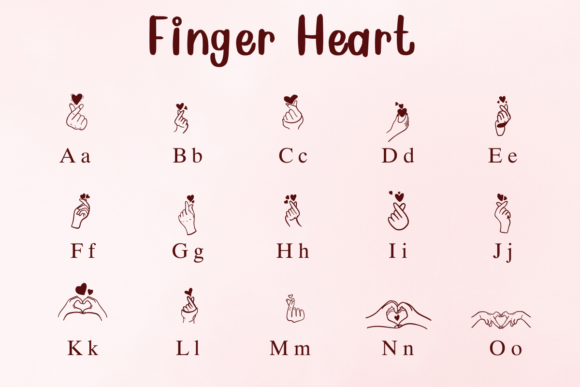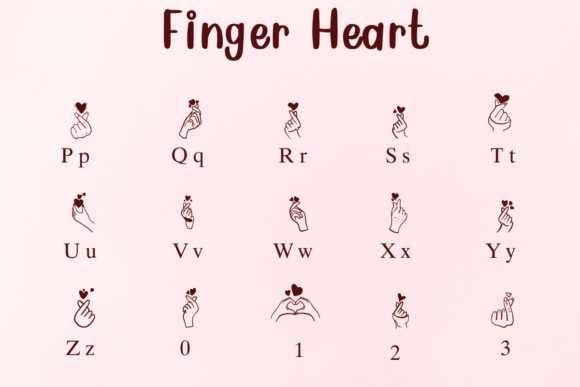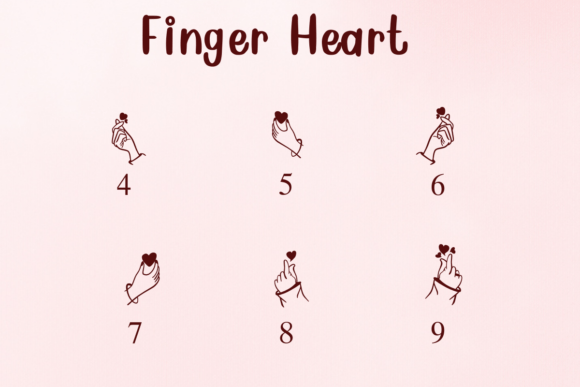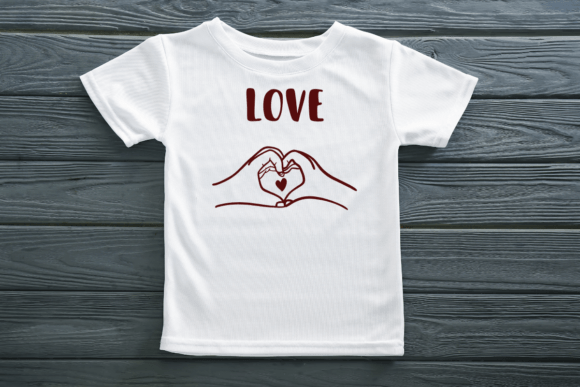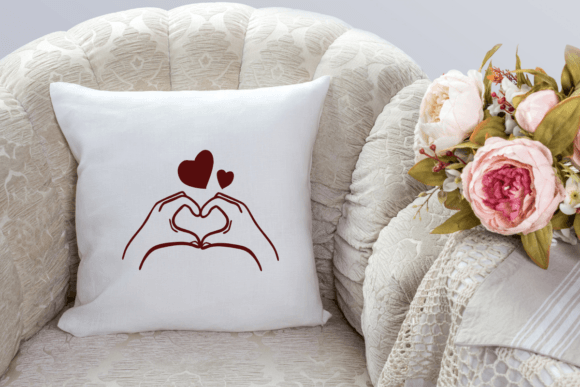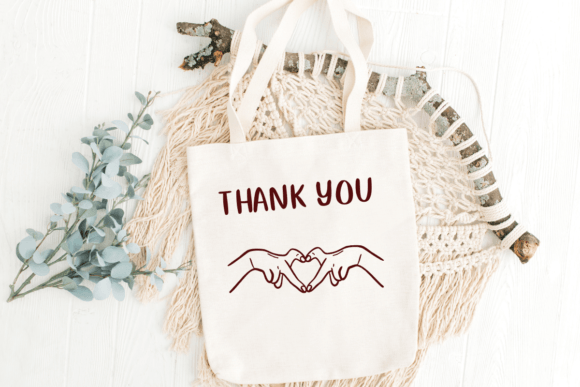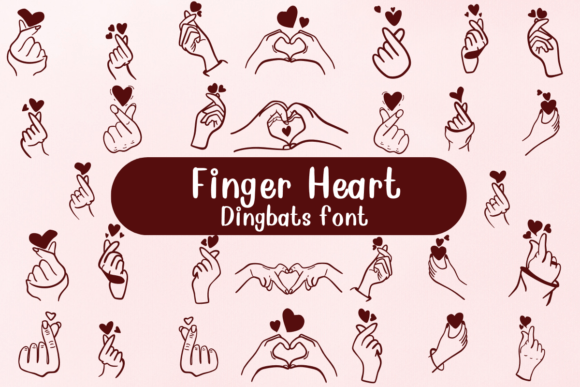
Finger Heart Font: Add a Touch of Romance to Your Creative Projects
Are you looking for a unique and romantic font to enhance your creative projects? Look no further than the Finger Heart Font, a dingbats font that is perfect for adding a touch of love and whimsy to your designs. In this article, we’ll explore the features and benefits of the Finger Heart Font, and show you how it can be used to take your creative projects to the next level.
What is Finger Heart Font?
Finger Heart Font is a dingbats font that features a romantic theme, with a collection of finger heart symbols, cute illustrations, and decorative elements. The font is designed to be versatile and can be used for a wide range of creative projects, from wedding invitations and DIY crafts to decorations, logos, and more.
Features of Finger Heart Font
The Finger Heart Font has several features that make it a great choice for designers and crafters. Some of its key features include:
- Unique and Romantic Design: The font features a unique and romantic design, with finger heart symbols and cute illustrations that are sure to capture the hearts of your audience.
- Versatile: The font is versatile and can be used for a wide range of creative projects, from wedding invitations and DIY crafts to decorations, logos, and more.
- Easily Customizable: The font is easily customizable, allowing you to adjust the size, color, and style to suit your needs.
- High-Quality: The font is of high-quality, with crisp and clear lines that will look great in any design.
Uses of Finger Heart Font
The Finger Heart Font can be used for a wide range of creative projects, including:
- Wedding Invitations: The font is perfect for wedding invitations, adding a touch of romance and whimsy to your designs.
- DIY Crafts: The font can be used for DIY crafts, such as making cards, gift tags, and other decorative items.
- Decorations: The font can be used to create beautiful decorations, such as banners, garlands, and other decorative elements.
- Logos: The font can be used to create unique and memorable logos for businesses and brands.
- Social Media Graphics: The font can be used to create social media graphics, such as Facebook posts, Instagram stories, and Twitter headers.
Benefits of Using Finger Heart Font
There are several benefits to using the Finger Heart Font in your creative projects. Some of the benefits include:
- Adds a Touch of Romance: The font adds a touch of romance and whimsy to your designs, making them more engaging and memorable.
- Unique and Creative: The font is unique and creative, allowing you to stand out from the crowd and create designs that are truly one-of-a-kind.
- Easy to Use: The font is easy to use, with a simple and intuitive design that makes it easy to customize and adjust to your needs.
- High-Quality: The font is of high-quality, with crisp and clear lines that will look great in any design.
Tips for Using Finger Heart Font
Here are some tips for using the Finger Heart Font in your creative projects:
- Use it for Romantic Occasions: The font is perfect for romantic occasions, such as weddings, anniversaries, and Valentine’s Day.
- Experiment with Different Colors: The font looks great in a variety of colors, so don’t be afraid to experiment and find the perfect color for your design.
- Combine it with Other Fonts: The font can be combined with other fonts to create a unique and creative design.
- Use it for DIY Crafts: The font is perfect for DIY crafts, such as making cards, gift tags, and other decorative items.
In conclusion, the Finger Heart Font is a unique and romantic font that is perfect for adding a touch of love and whimsy to your creative projects. With its versatile design, high-quality lines, and ease of use, it’s a great choice for designers and crafters alike. Whether you’re creating wedding invitations, DIY crafts, decorations, logos, or social media graphics, the Finger Heart Font is sure to make your designs stand out from the crowd.